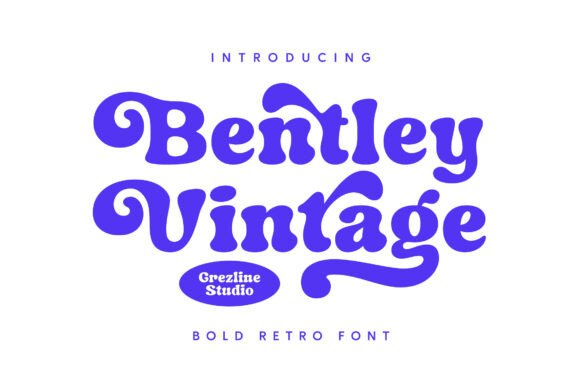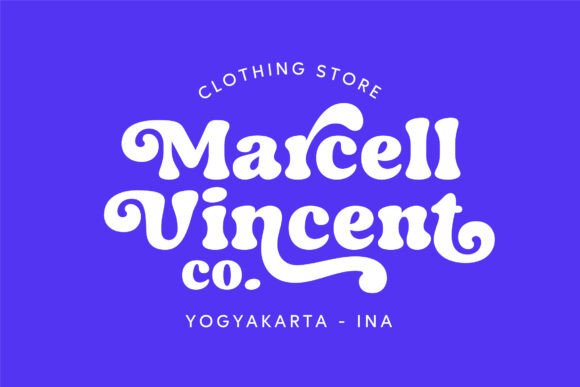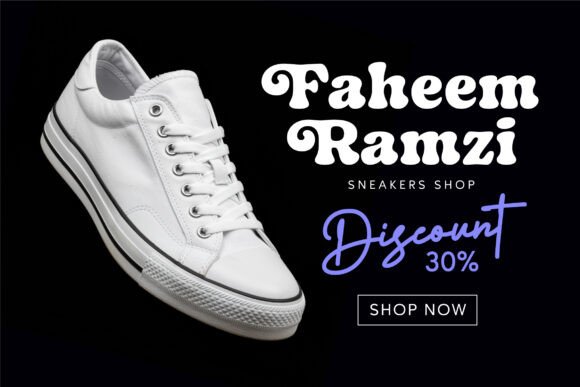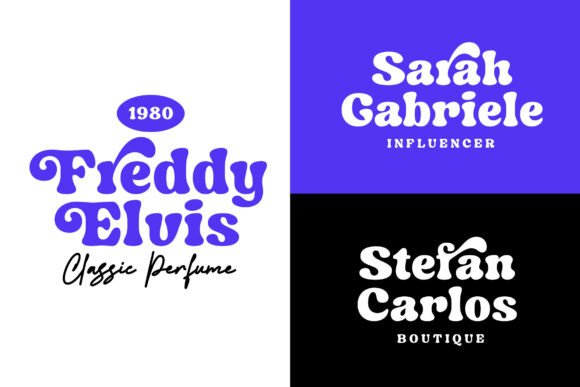
Bentley Vintage Font
About the Bentley Vintage Font
Unleash your creativity with Bentley Vintage Font, a versatile font perfect for a wide range of applications. Introducing Bentley Vintage, a meticulously crafted retro font that bridges nostalgia with contemporary sophistication—where vintage charm meets exacting modern standards. Whether you’re crafting a brand identity, designing a retro-themed poster, or adding character to a digital campaign, Bentley Vintage delivers.
This isn’t just another retro font; it’s a design asset with the charm of yesteryear and the flexibility today’s creatives demand.
Bentley Vintage Font Usage Examples
Bentley Vintage Font Example